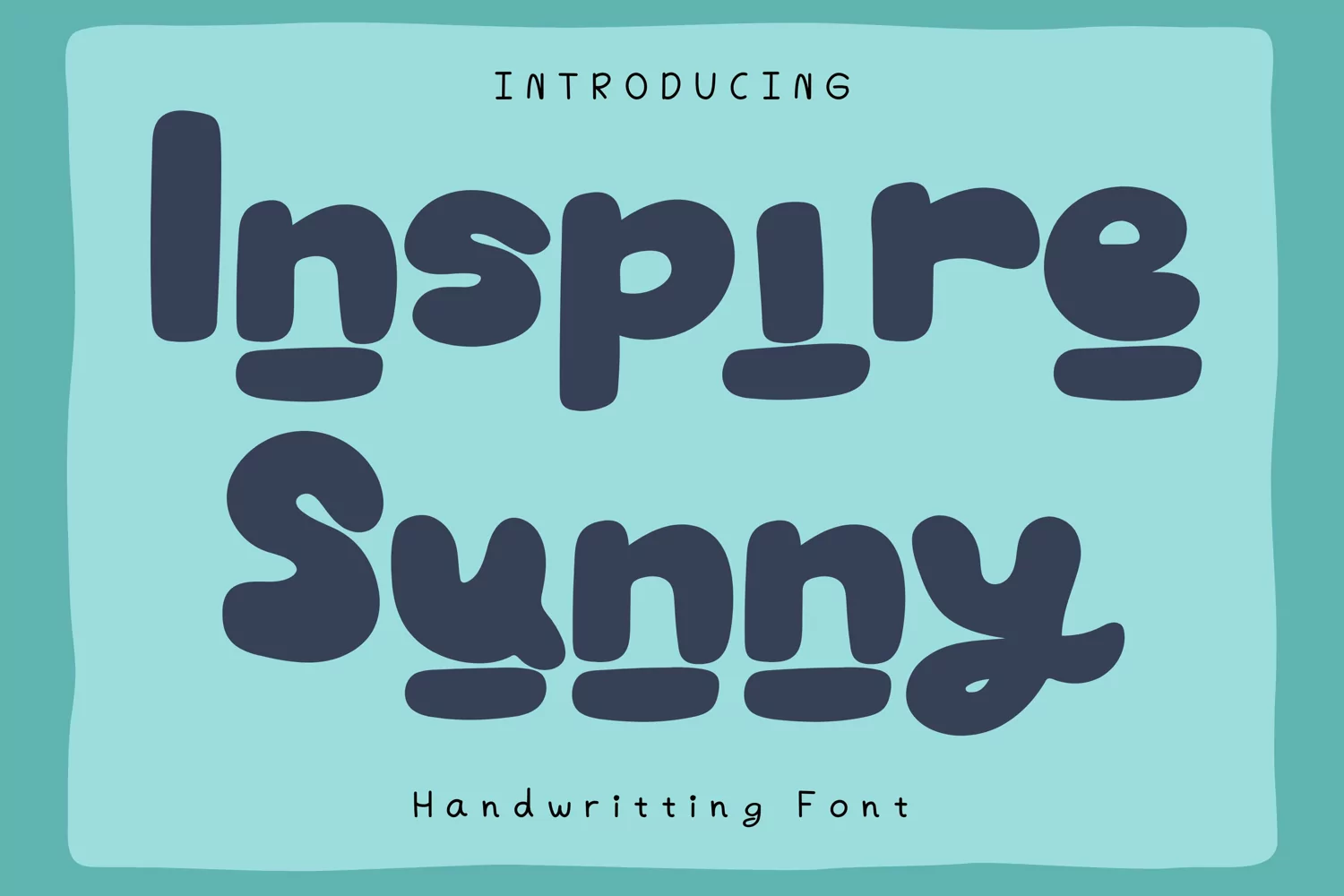
Created By AchiArt
Inspire Sunny Style
InspireSunny
Inspire Sunny Style is a whimsical and clean handwritten font. It can easily be matched to an incredibly large set of projects, so add it to your creative ideas and notice how it makes them stand out!